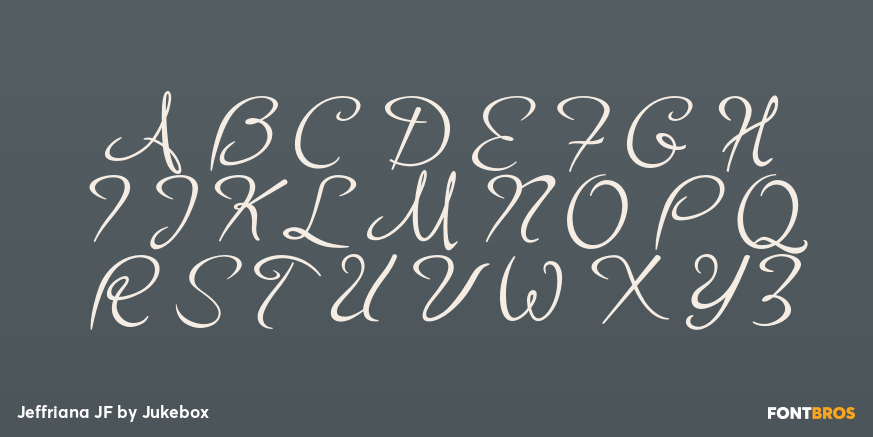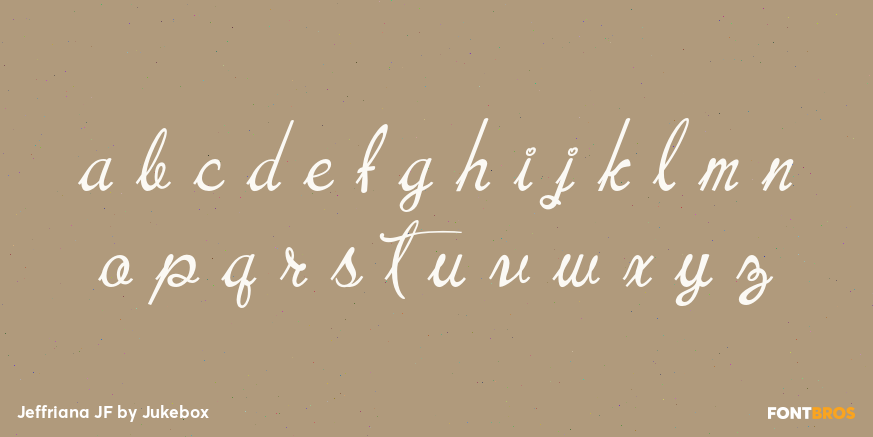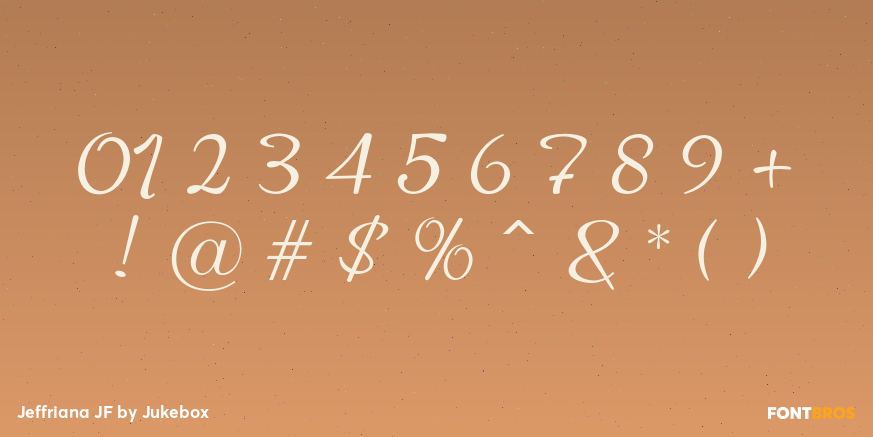
Jeffriana JF
Font Family by Jukebox
A script font done in a hand writing style named after a friend of the designer. Jeffriana was created with the idea in mind of maintaining the idiosyncrasies of writing rather than the more designed look of a typeface. That gives the font some quirky elements that make it seem a little less formal. It's a great choice for any design that needs a ?personal? touch.